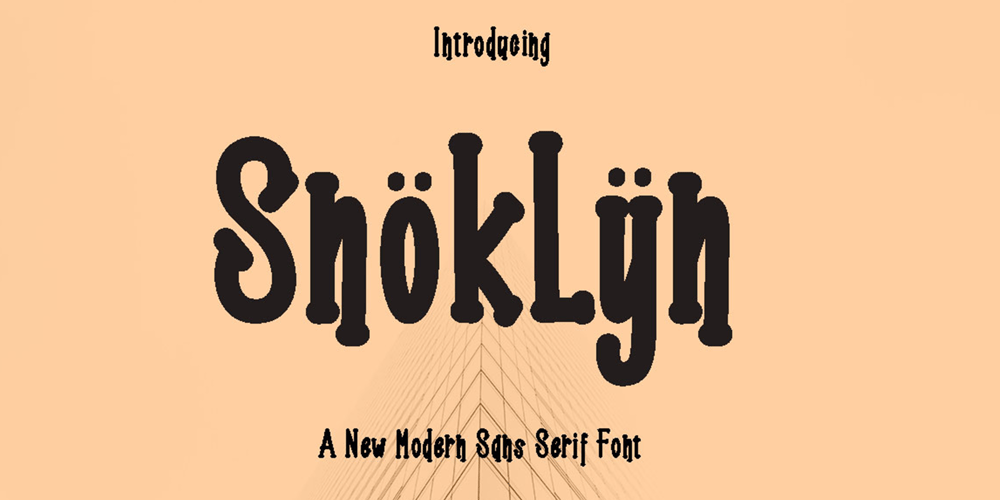
Snoklyn Font Family was designed by Rossy Fitrika Jamil and published by Occy Design. Snoklyn contains 1 styles and family package options. Snoklyn Bold can make it easier to convey the message in your design. Use for awesome display, labeling, clothing, movie sceen, poster, movie title, gigs, album covers, logos, Photography and much more.FILE INCLUDE Snoklyn Bold Goldeant Font supports the following languages; English, French, Italian, Spanish, Portuguese, German, Swedish, Norwegian, Danish, Dutch, Finnish, Indonesian, Malay, Hungarian, Polish, Croatian, Turkish, Romanian, Czech, Latvian, Lithuanian, Slovak, Slovenian.